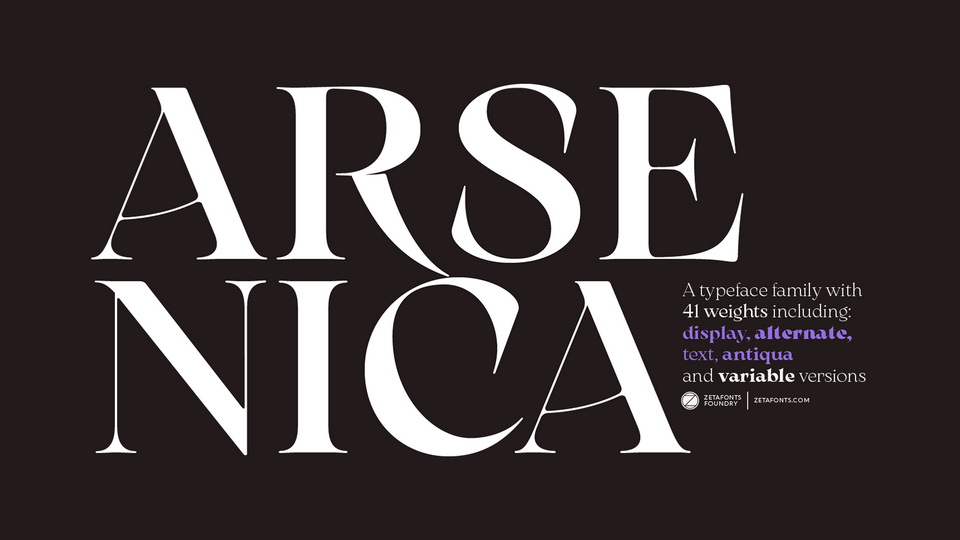
Download Arsenica font, a serif typeface inspired by Italian poster design at the beginning of the century. Arsenica is perfect for elegant modern branding and logo design, fascinating editorial design, expressive packaging and countless other projects.
Designer: Zetafonts